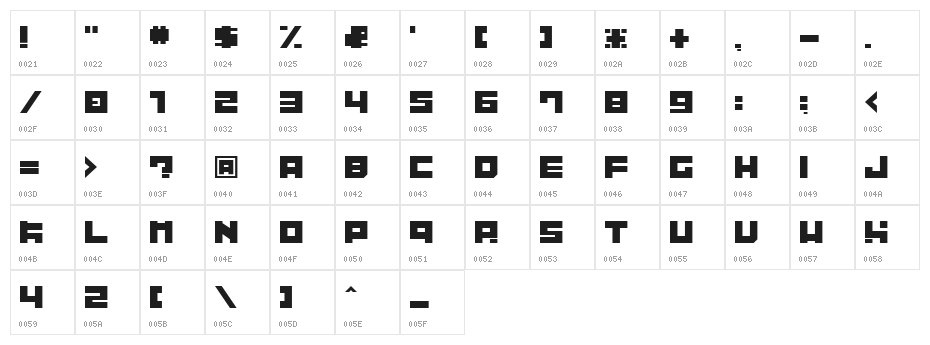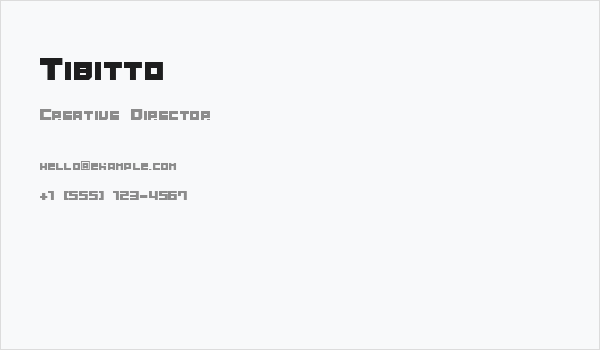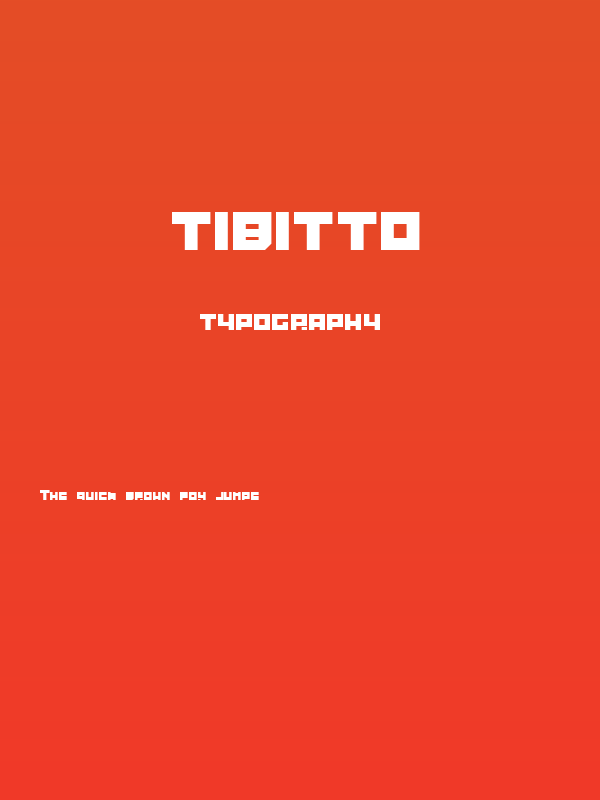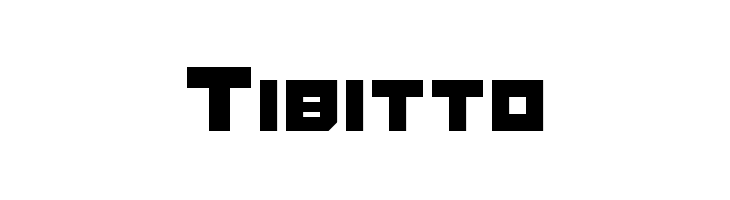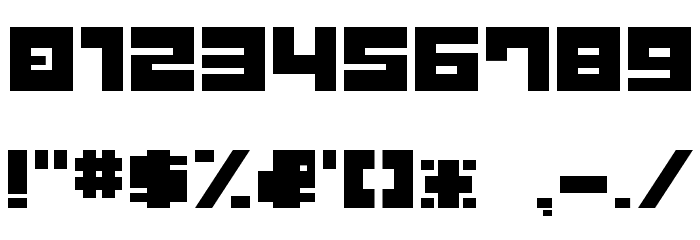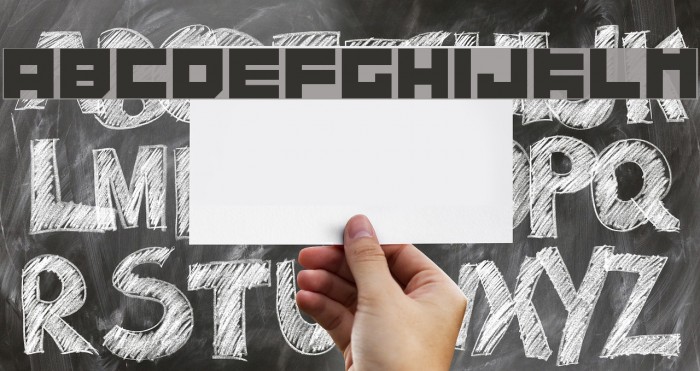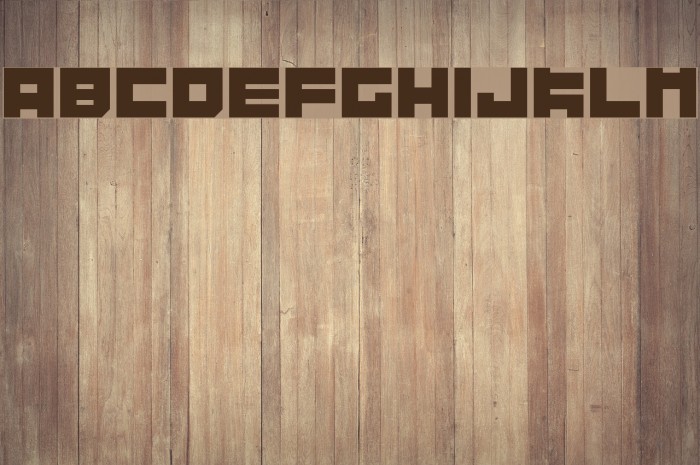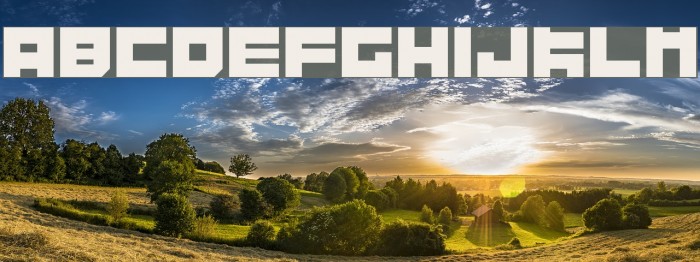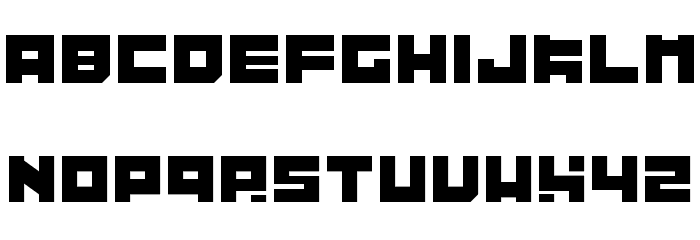
Tibitto Font
Tibitto Description
This font features a bold, geometric design with a strong, block-like appearance. Each character is constructed with sharp angles and consistent line thickness, giving it a modern and futuristic feel. The uppercase letters are particularly striking, with a uniform height and width that create a cohesive look. The numerals and special characters maintain this bold style, ensuring readability and impact. The overall design is clean and uncluttered, making it suitable for attention-grabbing headlines or logos. Its distinct style is both assertive and stylish, perfect for projects that require a strong visual presence.
| Proposed Projects | Ideal for branding, posters, video game graphics, and tech-related designs. |